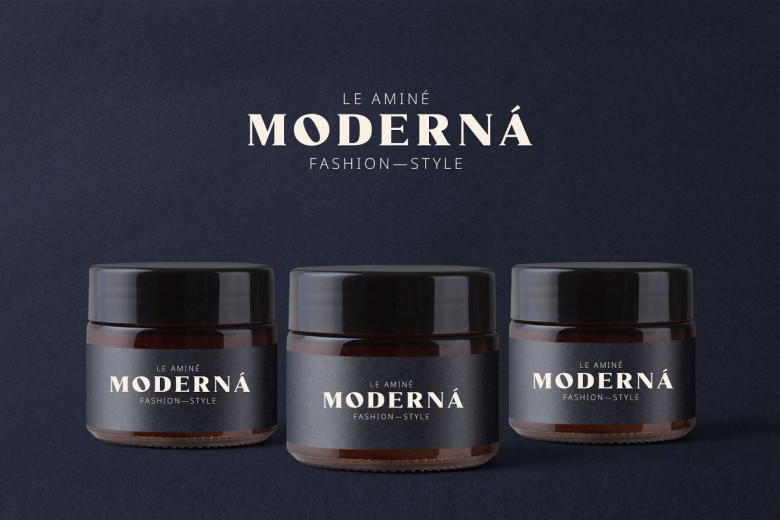
Marques Font Family
A new serif font family. If you are having trouble finding fonts for your design project, please refer to this font. Introducing Marques Serif Font Family. It’s designed and shared by Craft Supply Co.. Marques Font Family is a modern serif font family whose design refers us to the style of modern sans serif. The distinctive features of Marques Family are the relatively low contrast of strokes, the slightly squarish shapes of round characters and the emphasized business like simplicity.
Marques has been crafted from scratch with a structural logic of its own: a fusion of pure geometry and optical balance. By combining a variety of styles Marques Family is suitable for Logo, greeting cards, quotes, posters, branding, name card, stationary, design title, blog header, art quote, typography